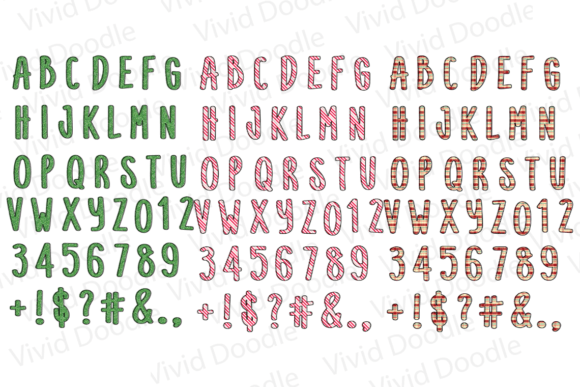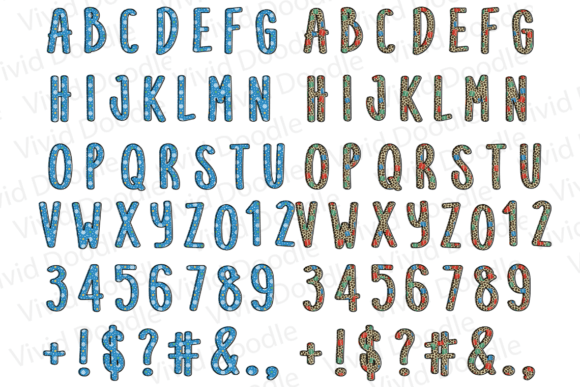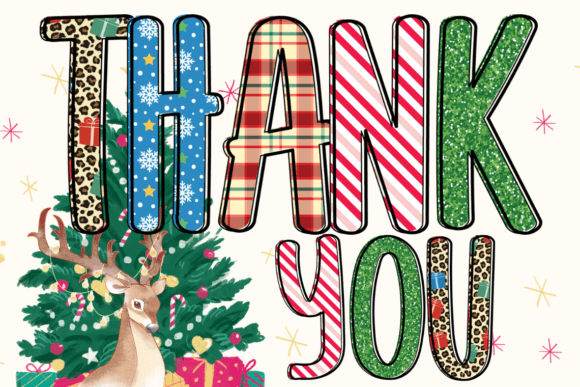
Introduction to Christmas Holiday Doodle Font
Christmas Holiday Doodle Font is a playful and festive handwritten typeface designed to bring holiday cheer to your projects.
Featuring joyful doodles that evoke the magic of Christmas and winter, this font is perfect for creating holiday cards, posters, school projects, and creative art pieces Whether youโre designing for Christmas-themed events, holiday decor, or crafting personalized gifts, Christmas Holiday Doodle Font will add a fun, whimsical touch to your designs.
Key Features of Christmas Holiday Doodle Font
Why Choose Christmas Holiday Doodle Font?
Christmas Holiday Doodle Font offers exceptional quality and versatility, making it a valuable addition to your design toolkit. Whether you’re creating for personal projects or commercial use, Christmas Holiday Doodle Font delivers professional results.